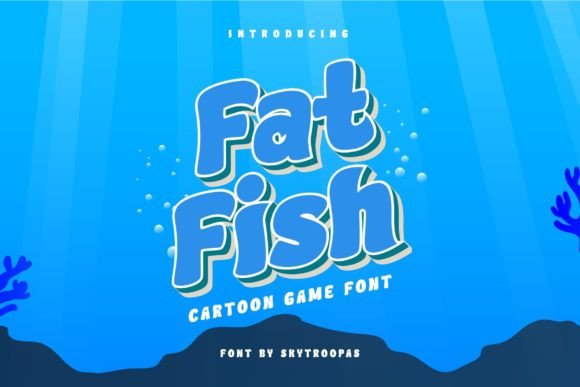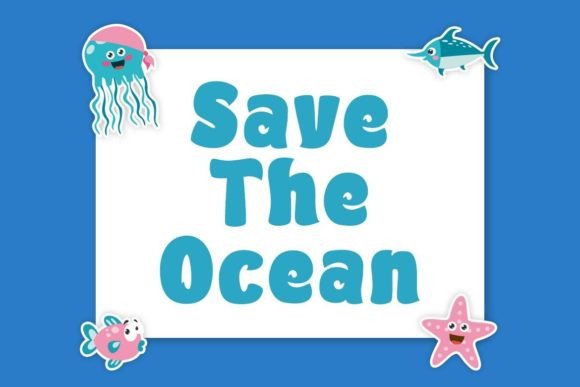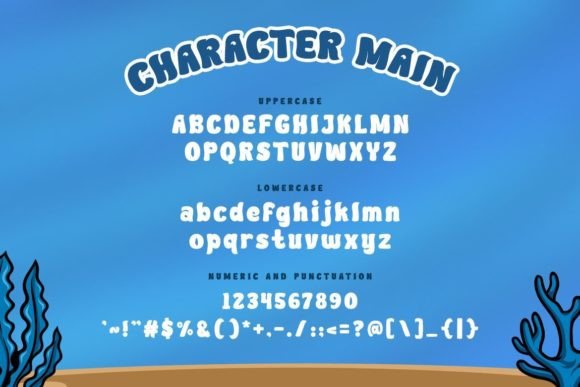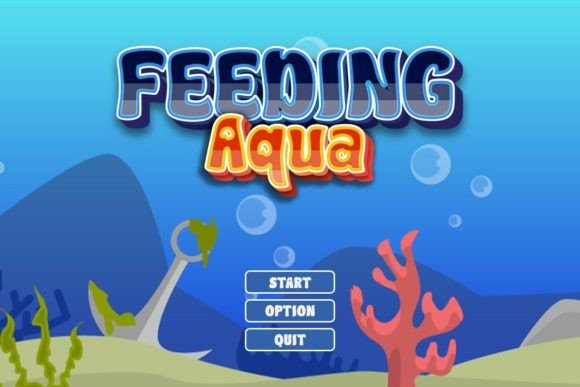
Fat Fish – Ocean Gaming Font
About the Fat Fish – Ocean Gaming Font
Presenting Fat Fish – Ocean Gaming Font, a unique and stylish typeface that will make your work stand out. Fat Fish – Cartoon Gaming Font
Bold and cute, also giving perfect readability in a formal vibe, but still bringing a fun twist to it.
Suited perfectly for children’s books market, online games, teens event posters, school supplies font, posters, movie titles, youtube covers, youtube thumbnails, social media page covers, and so on…
Fat Fish excels in display applications such as headlines, logos, and short text blocks on posters or social media graphics. Its playful boldness works well for branding targeting younger audiences or projects with a fun, energetic tone. However, its weight and unique character make it unsuitable for body text or UI elements requiring high readability in large quantities.
Consider pairing Fat Fish with a clean sans-serif like Open Sans for a balanced contrast, or a more geometric sans-serif like Futura for a modern feel. For a more playful aesthetic, a rounded sans-serif could also work well. Avoid pairing it with overly decorative or script fonts, which might clash with its bold personality.
Fat Fish projects a friendly, bold, and slightly mischievous personality. It’s ideal for brands focused on gaming, children’s entertainment, or products aimed at a youthful demographic. Its unique character makes it memorable and effective in grabbing attention.
Fat Fish – Ocean Gaming Font Usage Examples
Fat Fish - Ocean Gaming Font Example